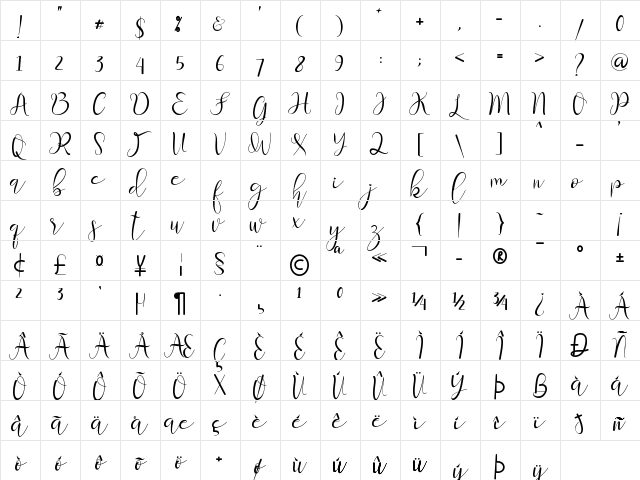
sherllia Regular Font Preview
sherllia Regular
sherllia Regular Font Details
| Designer | Yogaletter 2020 (Isroni Yoga Prasetya) |
Design Context for sherllia Typeface
sherllia is a composed and adaptable typeface that performs quietly and consistently across a wide range of design contexts.